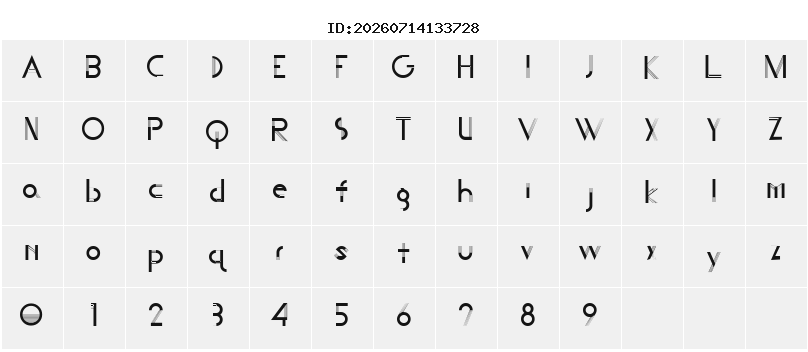
HARP Preview
• Font Name: HARP
• Full Font Name: HARP
About HARP.ttf
HARP.ttf is a modern, elegant sans-serif font designed for ultimate readability and visual harmony. Perfect for branding, headlines, web design, and print materials.